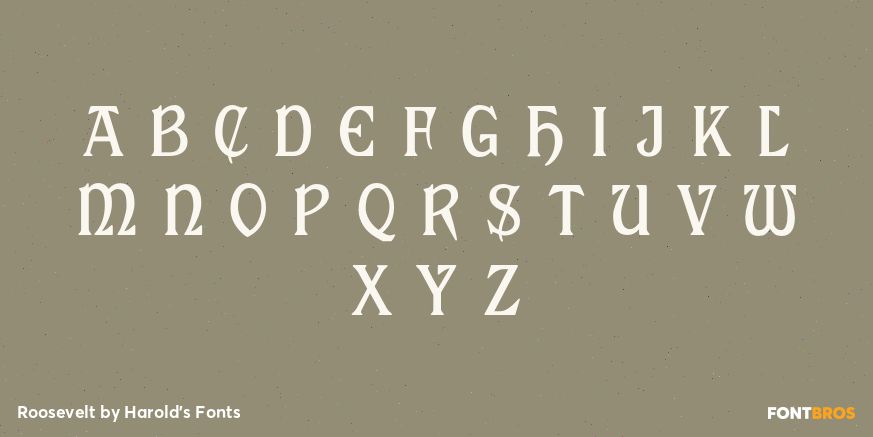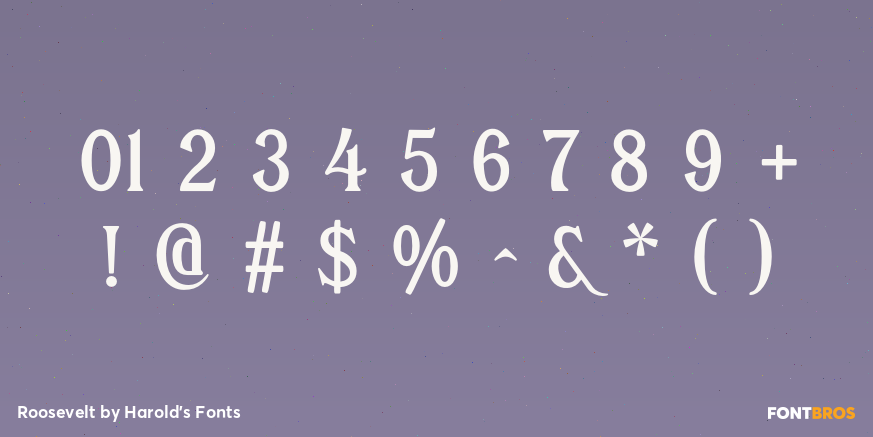
Roosevelt
Font Family by Harold's Fonts
ROOSEVELT has a graceful historical feel in large and small caps. Some have called its look Celtic or Gaelic. It was inspired by a font once used on organs and pianos, similar to my Aeolian font. The name comes from Hilborne L. Roosevelt and his brother Frank Roosevelt, famous organ builders, not Theodore, their first cousin.